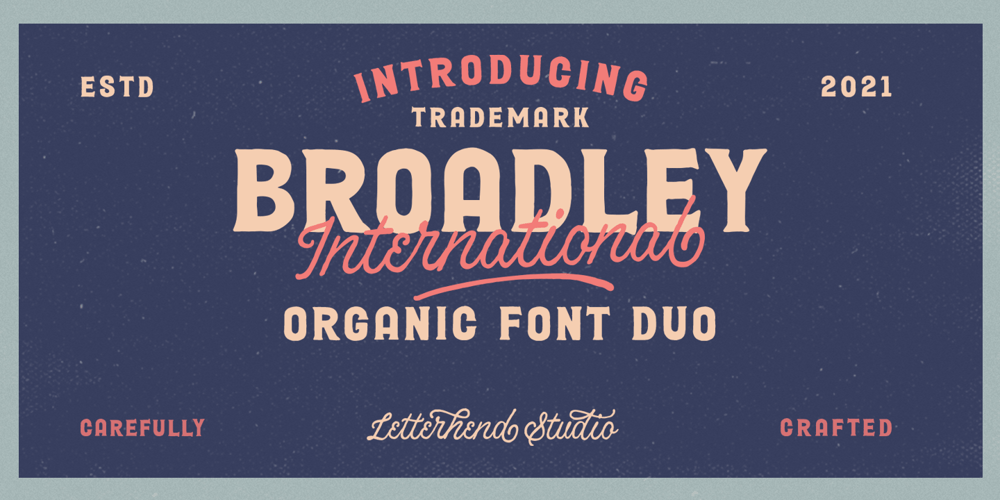
Broadley
Broadley font
Broadley Font Family was designed by Hendry Juanda and published by Letterhend. Broadley contains 2 styles and family package options. Introducing, Broadley, a pair of hand drawn bold serif and script with a touch of vintage look and feel. This type of font perfectly made to be applied especially in logo, headline, signage and the other various formal forms such as invitations, labels, logos, magazines, books, greeting / wedding cards, packaging, fashion, make up, stationery, novels, labels or any type of advertising purpose.Features : uppercase & lowercase numbers and punctuation multilingual alternates / swashes and ligatures PUA encoded We highly recommend using a program that supports OpenType features and Glyphs panels like many of Adobe apps and Corel Draw, so you can see and access all Glyph variations.